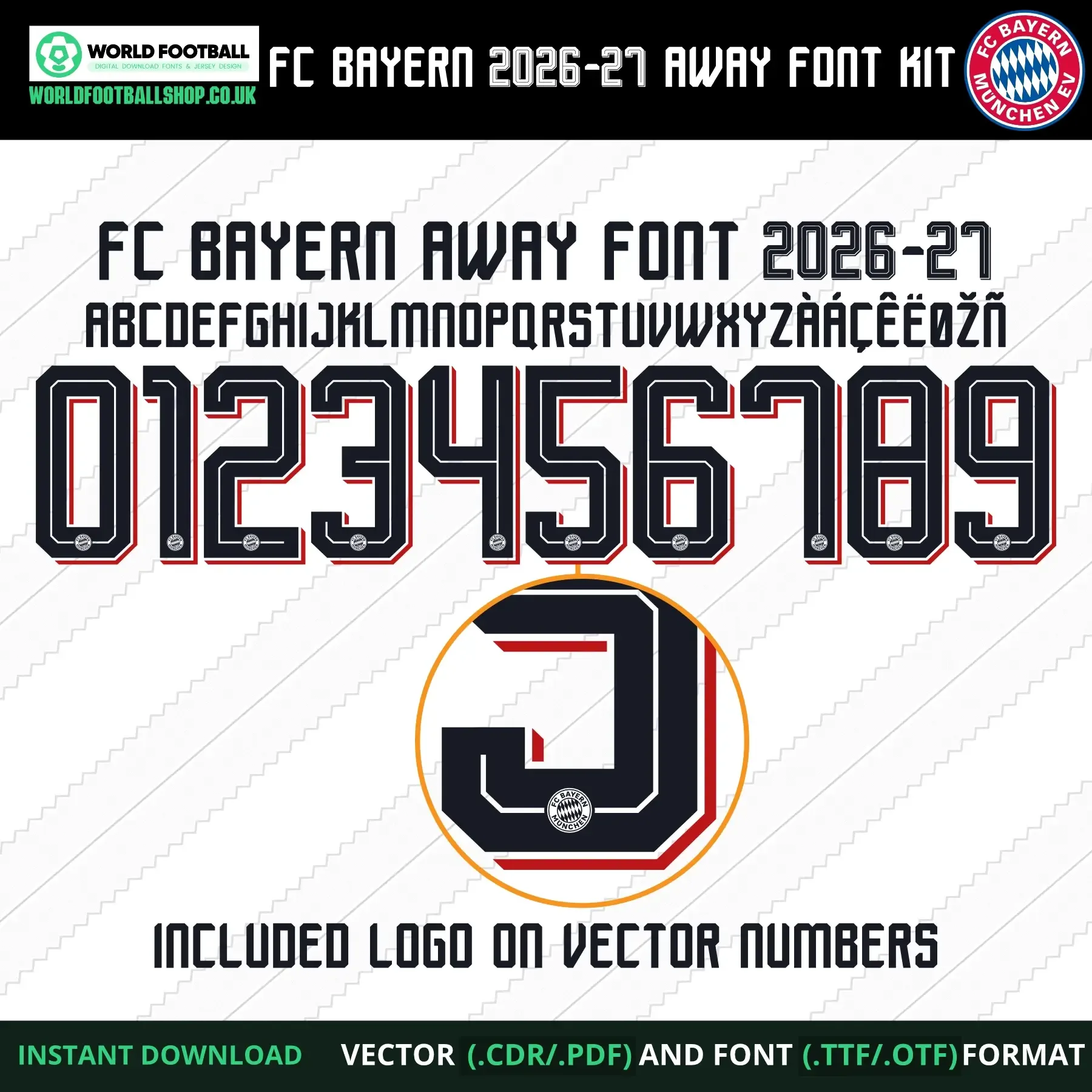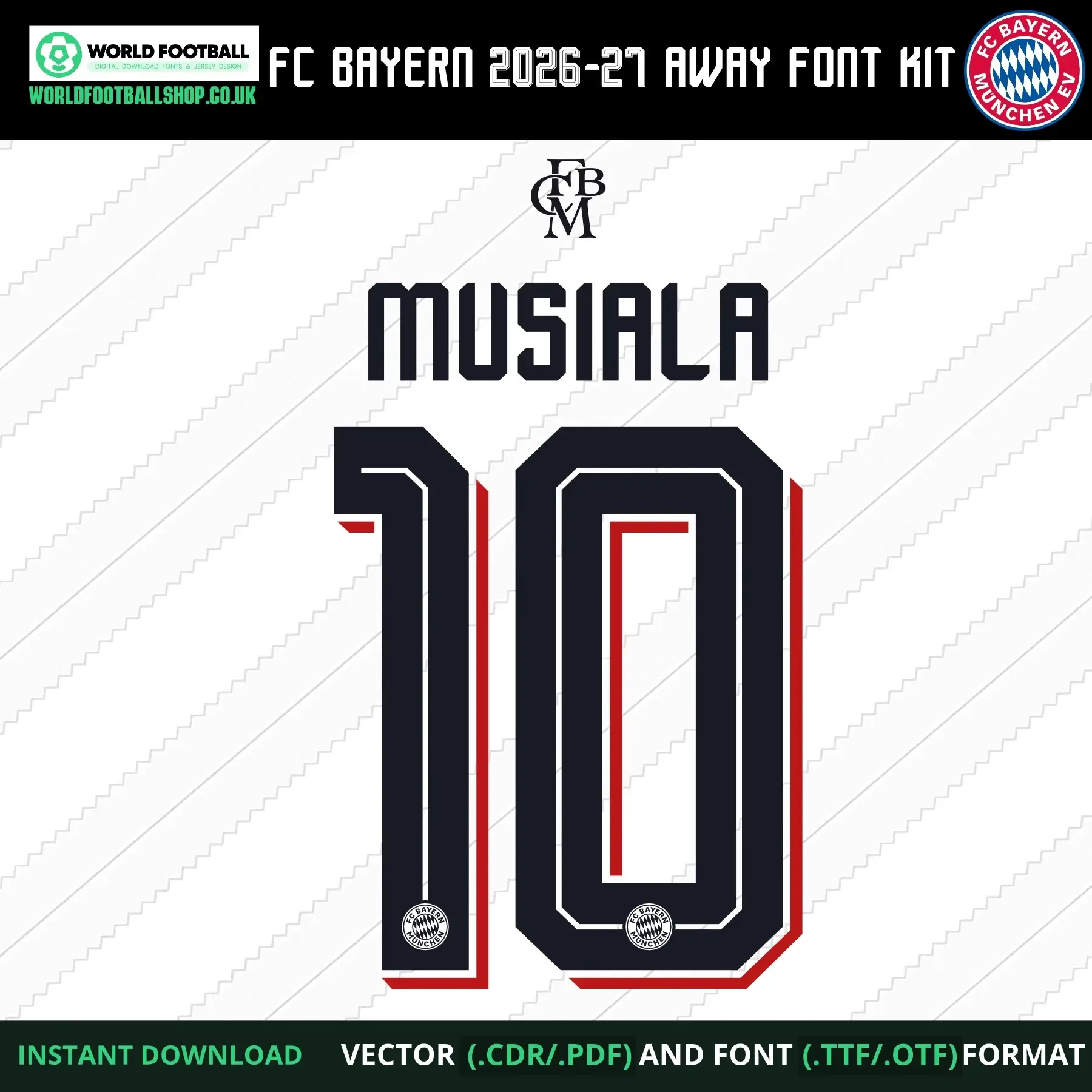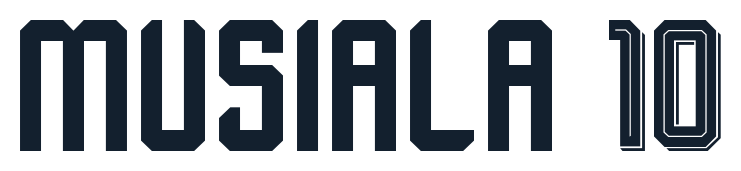
FC Bayern 2026-27 Football Font Vector Away, inspired by the style of Bayern Munich's away kit lettering. Includes TTF and OTF font files plus CDR and PDF vector files, with a full AβZ alphabet, numbers 0β9, and accented characters (Γ, Γ, Γ, Ε½, Γ). Instant digital download - no physical product is shipped.
Bayern Munich's 2026-27 away kit Football font shares its blocky structure and inline detailing with Adidas' 2026 World Cup typeface, and the shirt itself brought back the club's classic e.V. crest for the first time in around 25 years - a change well-received by fans. This FC Bayern football font vector captures that look: bold navy characters with a red outline and a fine white inline stroke, set against a white background with a subtle diagonal pinstripe texture, with the club crest embedded at the base of every letter and number. The preview layout shows the full character set alongside a sample name and number combination β MUSIALA 10 β to demonstrate how the font looks applied.β
- Accented characters: Γ, Γ, Γ, Ε½, Γ
- Bold navy-on-white styling with red outline and inline stroke delivers strong, retro-inspired contrast
- Crest detail embedded on every character for a cohesive, kit-inspired look
- Crest detail on every number - ideal for accurate shirt number recreations
This font is an independent recreation, studied closely from the away kit's actual lettering to capture its proportions, outline weight, and crest placement. It's built for jersey mockups, fan art, matchday graphics, and personal creative projects.